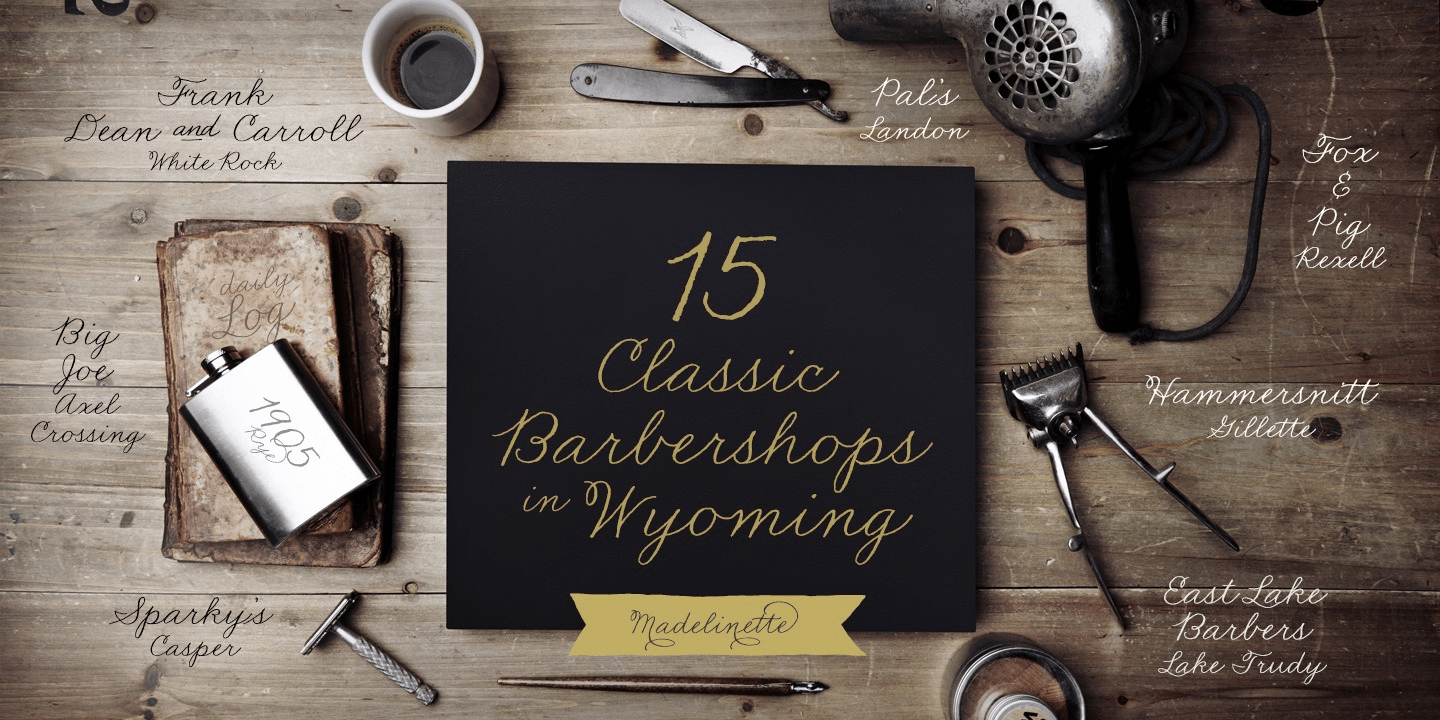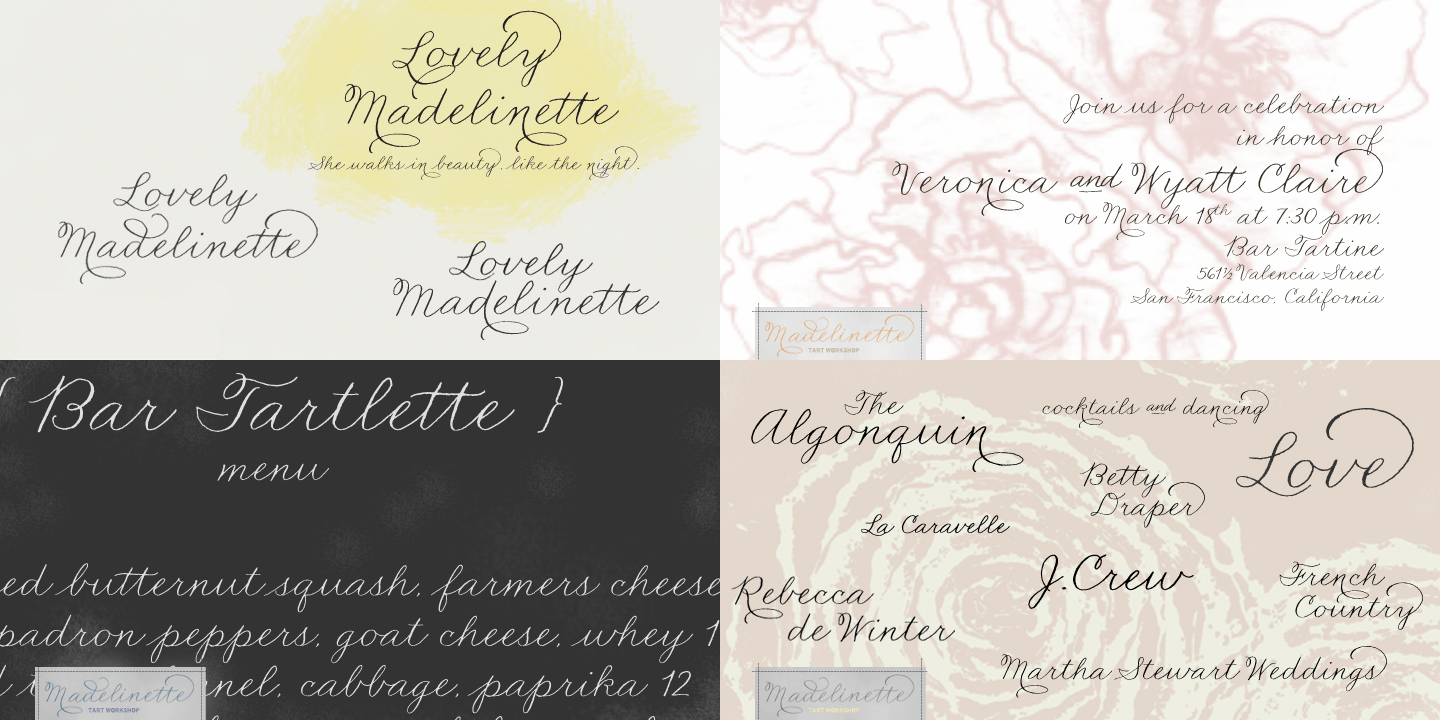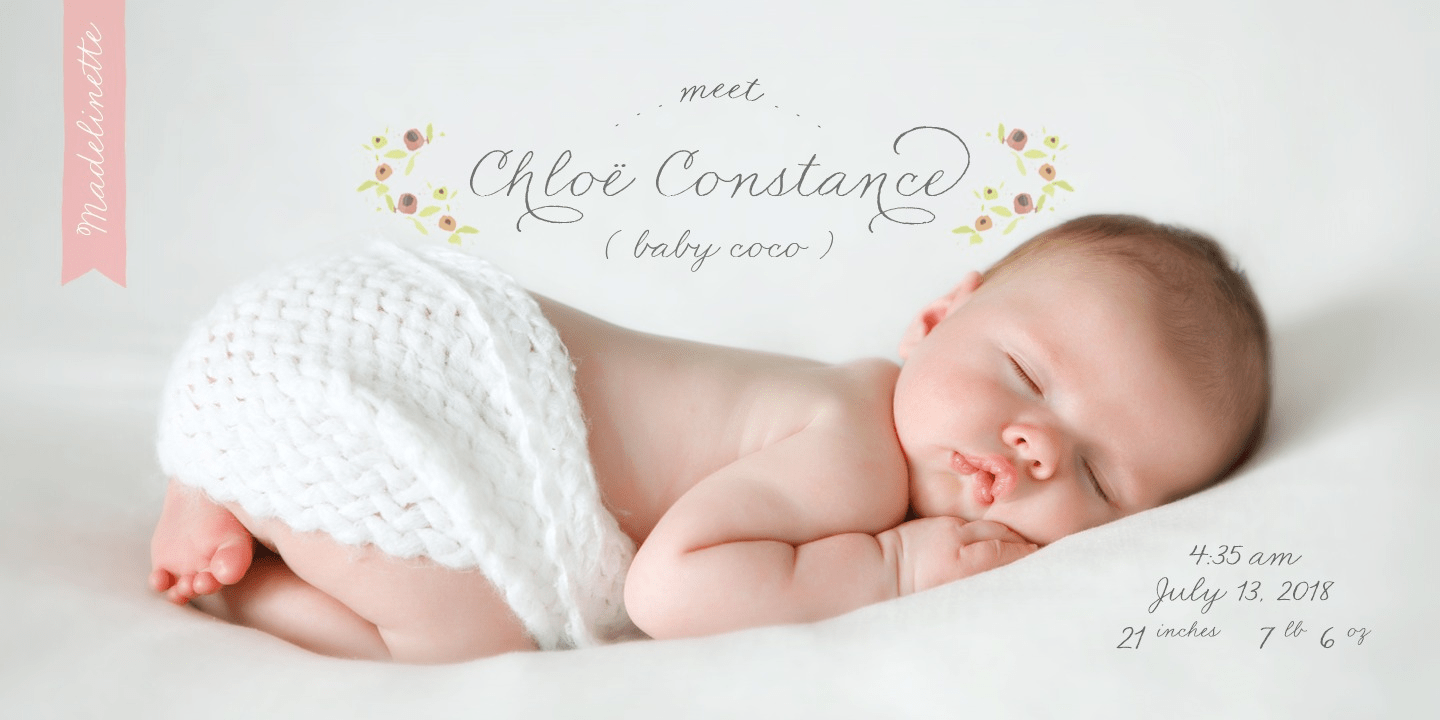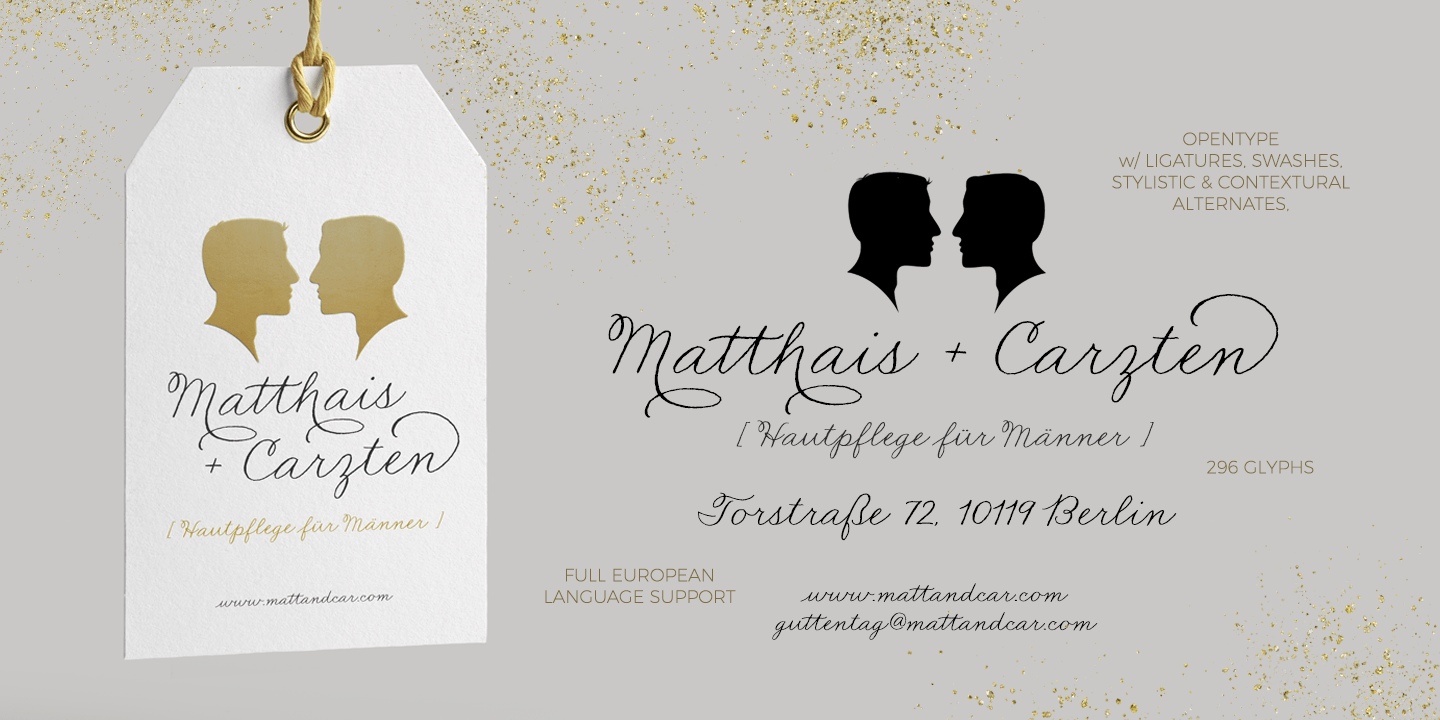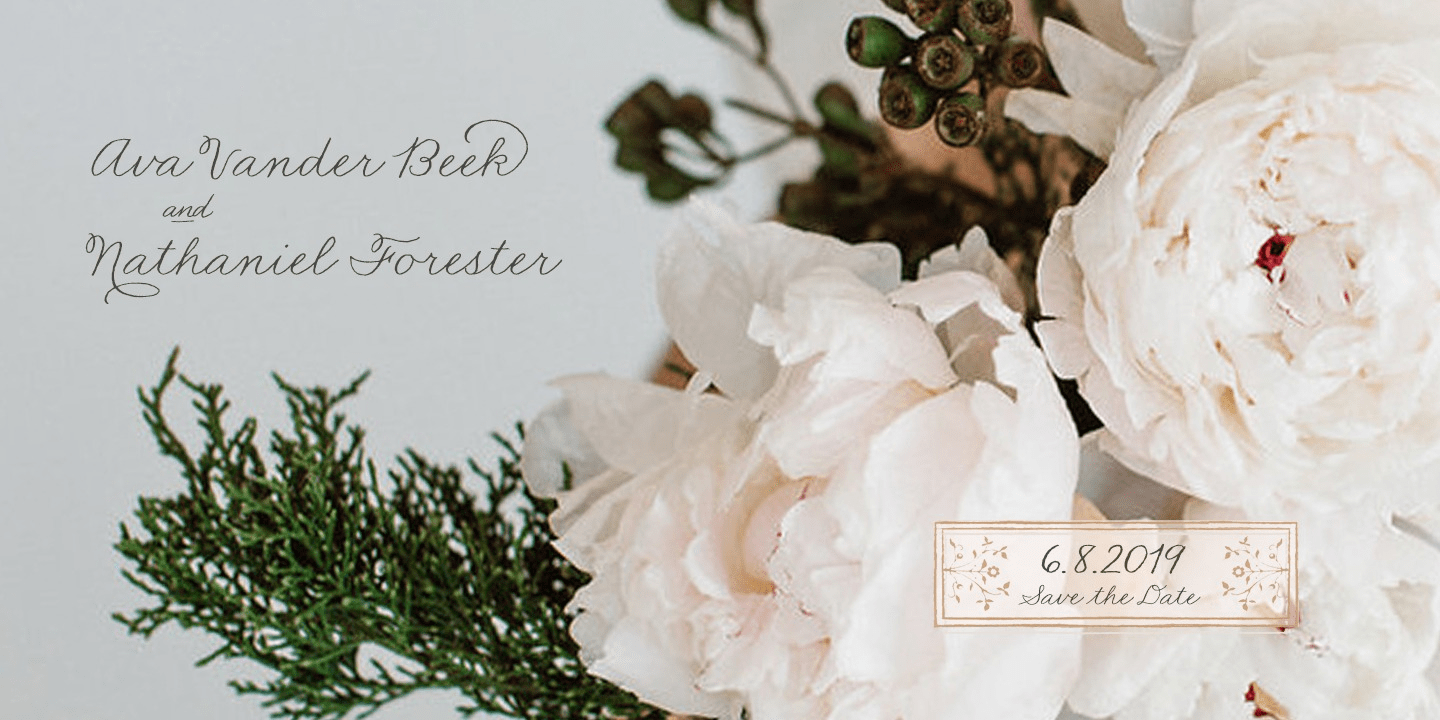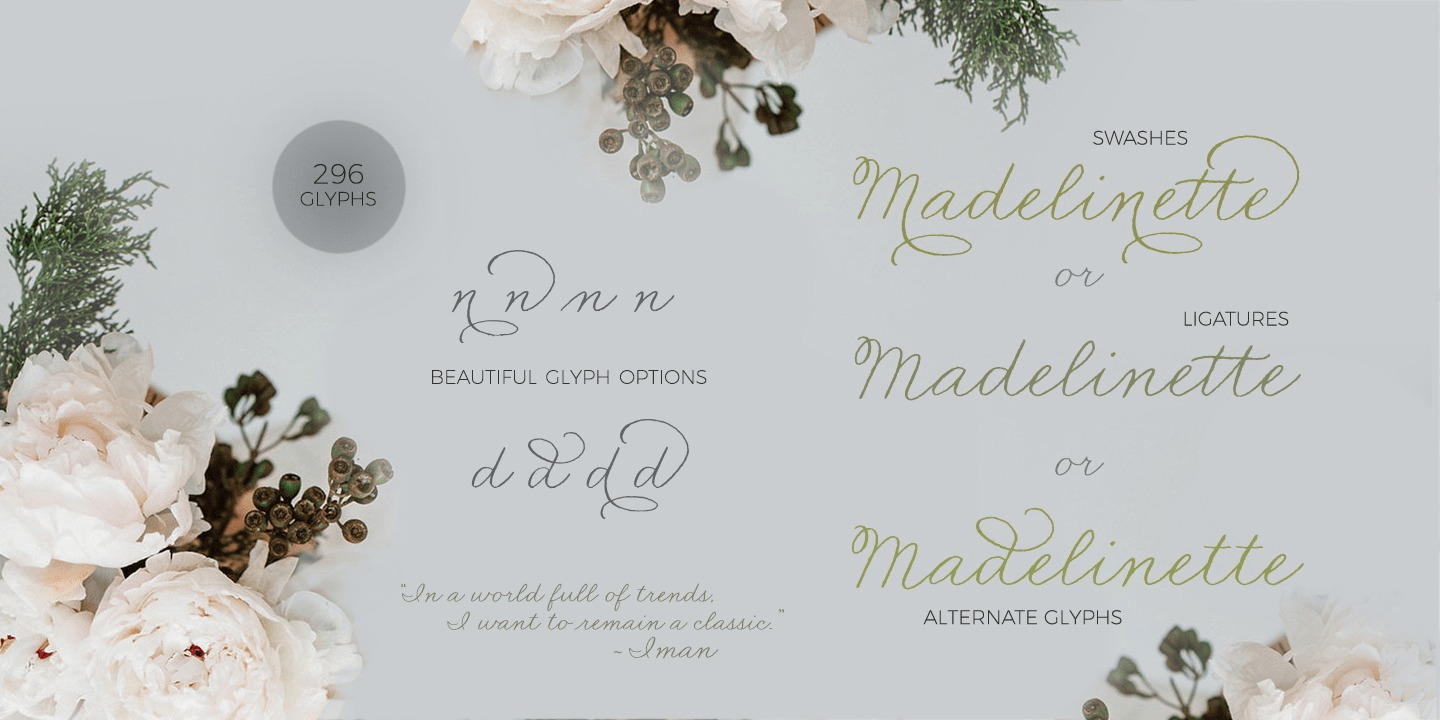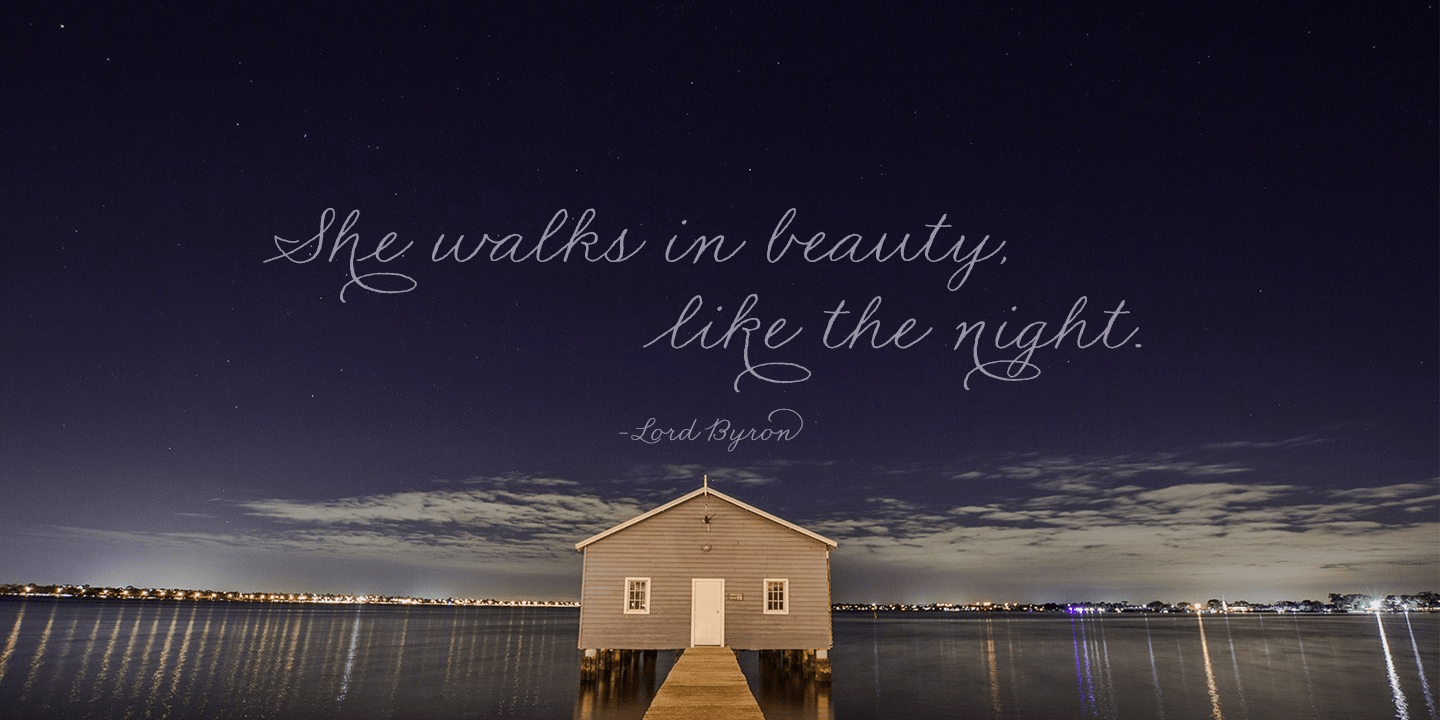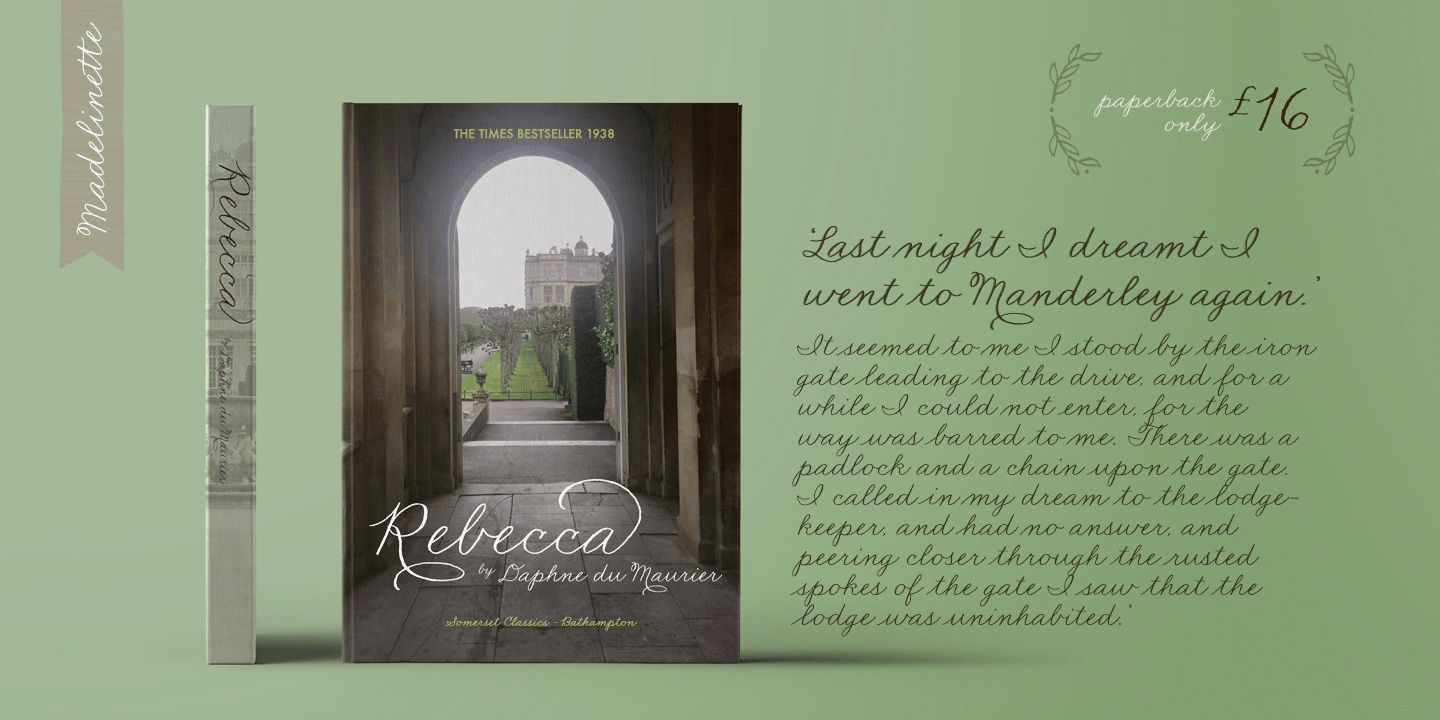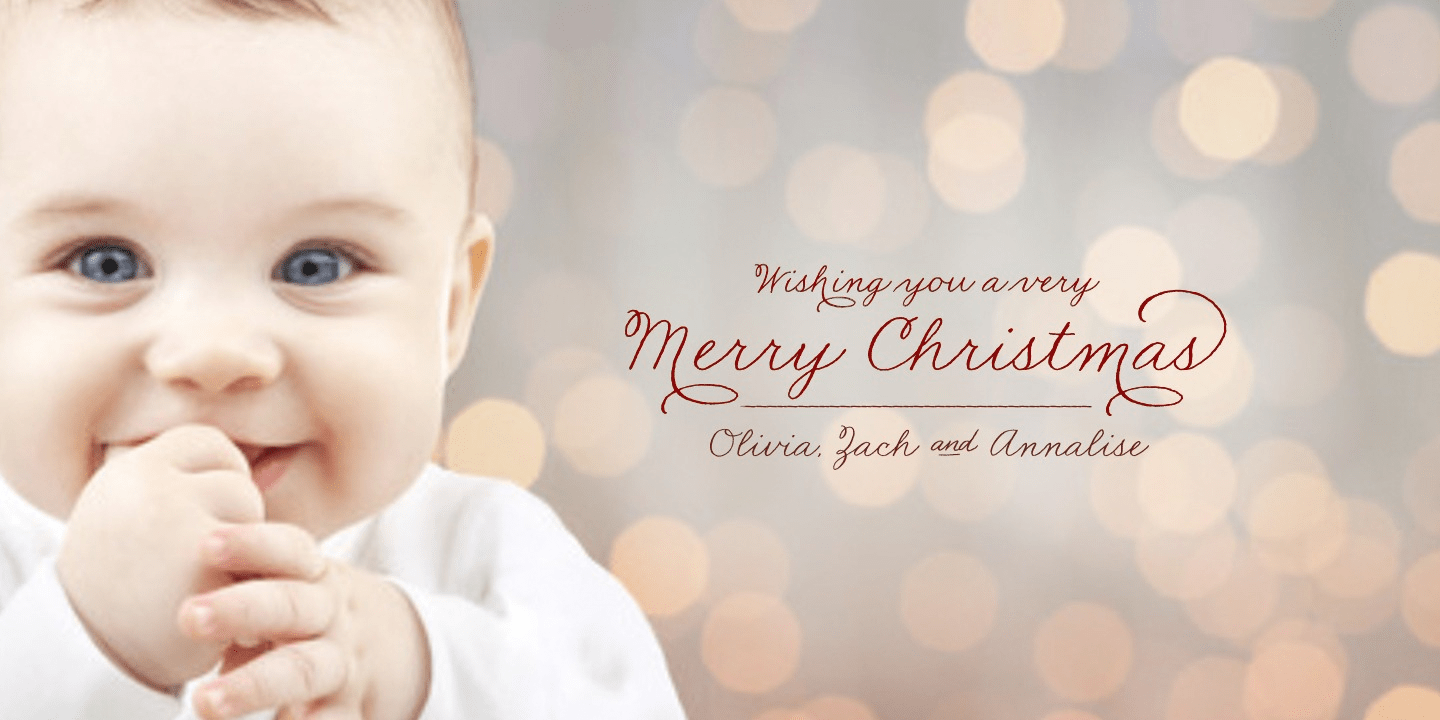
Madelinette
Font Family by Tart Workshop
Simple. Classic. The beautiful handwriting of your mother. Madelinette is inspired by Palmer Method which was introduced to the US in 1894 as a modern alternative to Spencerian. The method won many awards including the Gold Medals at the Panama Pacific Expo of 1915 and the Sesquicentennial Expo in 1926. This disciplined style set the standard of cursive penmanship for decades of American schoolchildren.
Of course, Madelinette was written with a steel-nibbed dip pen in black ink...she's traditional. She looks perfect in grandmother's pearls & sweater sets. Travels Europe on holiday. Loves Parisian food. Owns a tweed suit, plaid capris, a single pair of jeans and more shoes than she can count.
Not to be outdone, Madelinette contains loads of OpenType features including automatic ligatures, alternate beginning and ending forms, a complete set of swash and stylistic alternate forms creating a flawless and smoothly organic flowing handwritten look.